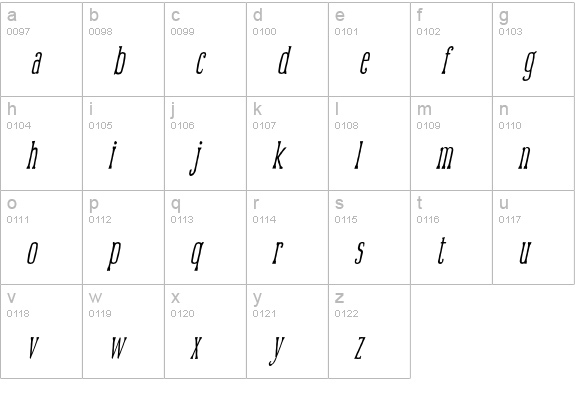
McFoodPoisoning4 Font Details
Introducing McFoodPoisoning4 font - a unique and eye-catching typeface designed to make a statement. This font exudes a playful and quirky vibe, perfect for adding a touch of fun to your projects. With its bold and exaggerated letterforms, McFoodPoisoning4 font is sure to stand out and captivate your audience. But don't let the name fool you - this font is all about creativity and originality, not food poisoning! Its unconventional design is bound to spark your imagination and bring a fresh perspective to your designs. And the best part? McFoodPoisoning4 font is completely free to download at FontsMarket.com. So why wait? Add a splash of personality to your projects with this one-of-a-kind font today!